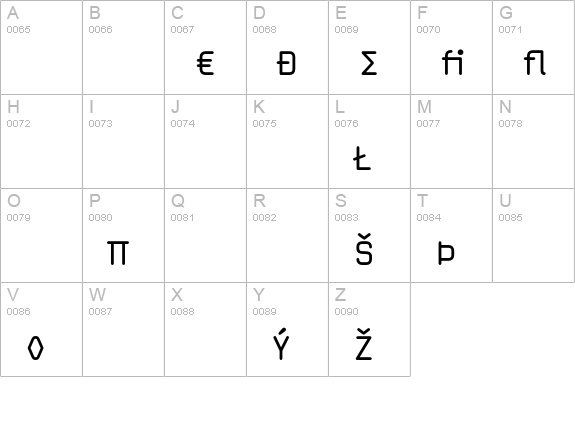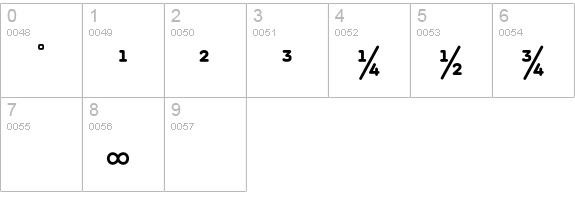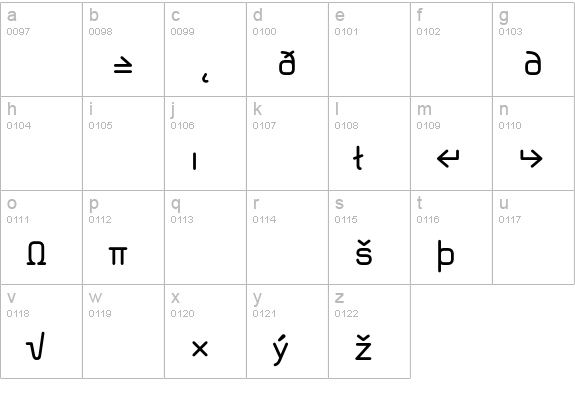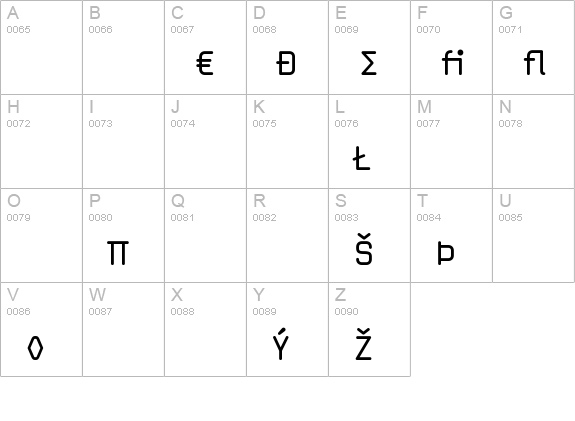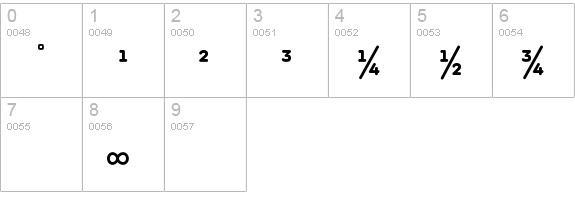
MagdaClean-RegularExpert Font Details
MagdaClean-RegularExpert font is a versatile and stylish typeface designed to enhance any project. Its clean and modern design makes it perfect for a wide range of uses, from branding and packaging to advertising and web design. With its expertly crafted letterforms and balanced proportions, this font exudes professionalism and elegance. One of the best things about MagdaClean-RegularExpert font is that it is free! Yes, you read that right. This amazing font is freely available to download at FontsMarket.com, making it accessible to everyone. Whether you are a professional designer or a hobbyist, you can now elevate your creations with this incredible font without worrying about any additional costs. The MagdaClean-RegularExpert font offers a wide range of characters, including uppercase and lowercase letters, numbers, punctuation marks, and special symbols. Its extensive character set ensures that you have all the tools you need to bring your ideas to life. The font also features multiple language support, making it suitable for projects in various languages. Not only does MagdaClean-RegularExpert font look great on screen, but it also prints beautifully. Its high-quality design ensures that your printed materials will have crisp and clear text, enhancing the overall visual appeal. Whether you are creating brochures, posters, or business cards, this font will make your designs stand out. In addition to its aesthetic appeal, MagdaClean-RegularExpert font is also easy to use. Its user-friendly nature ensures that both seasoned designers and beginners can utilize its full potential without any hassle. With this font, you can save time and effort while still achieving professional results. So, why wait? Download MagdaClean-RegularExpert font now for free at FontsMarket.com and take your designs to the next level. Whether you are working on a personal project or a client's assignment, this font will undoubtedly leave a lasting impression. Don't miss out on this fantastic opportunity to enhance your creative endeavors with this amazing font.